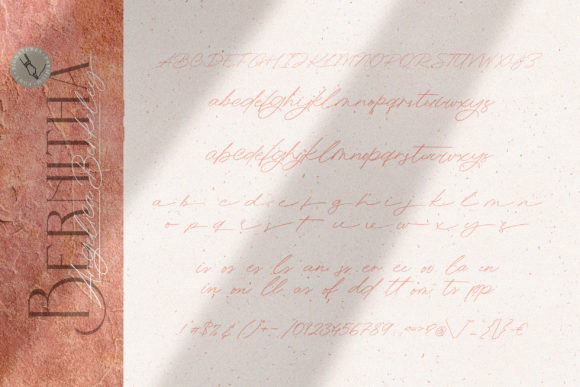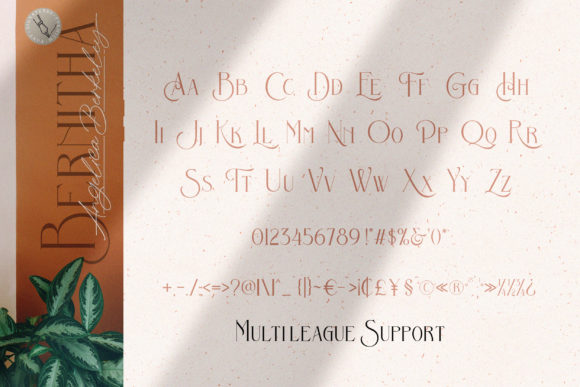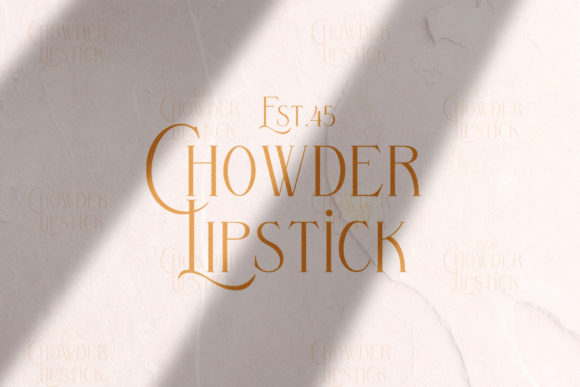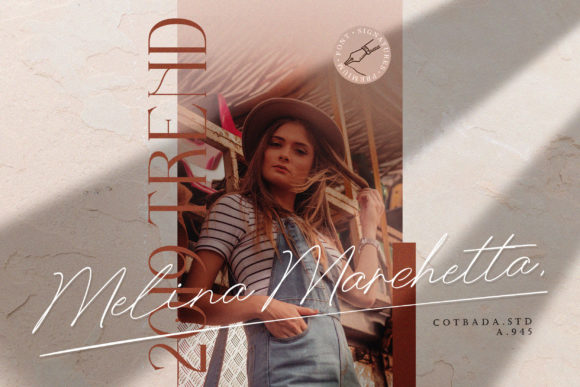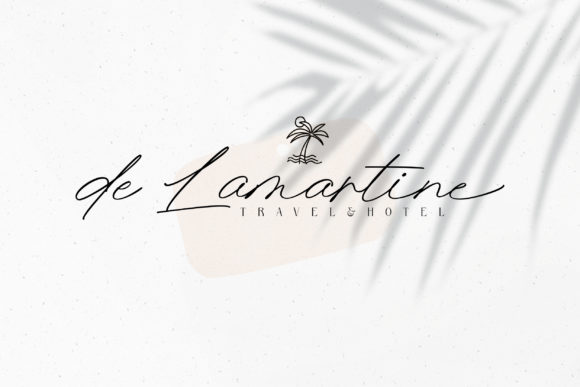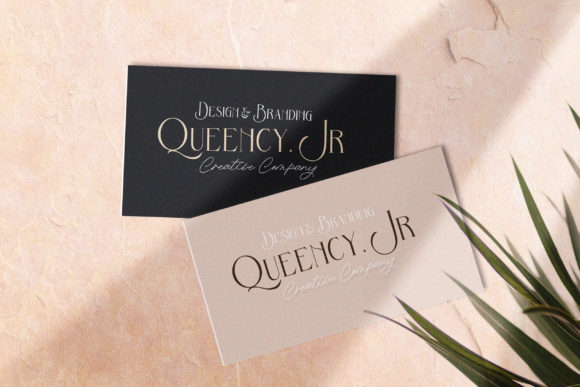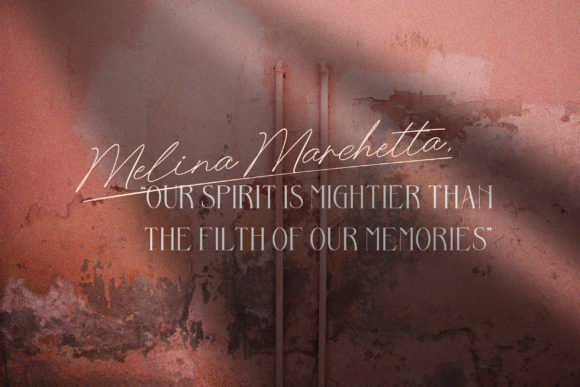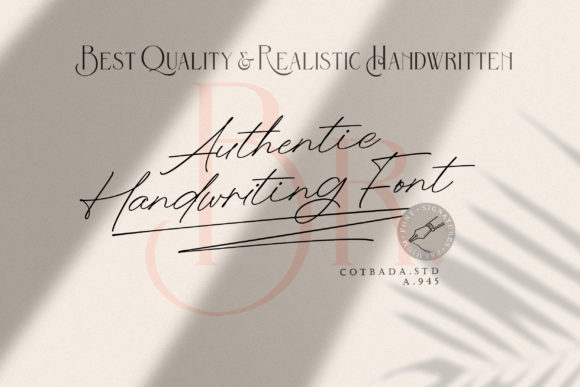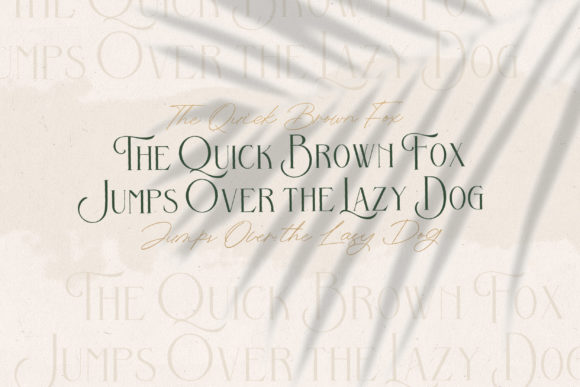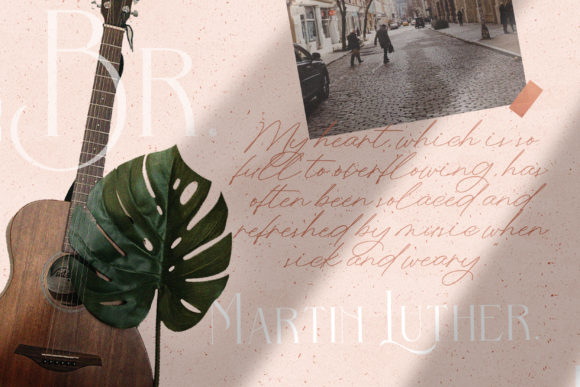
Bernitha Angelica Berkeley Duo Font
About Bernitha Angelica Berkeley Duo Font
Say hello to summer with the beautiful Bernitha Angelica Berkeley font duo. The two font styles provide typographic harmony for a diversity of design projects.